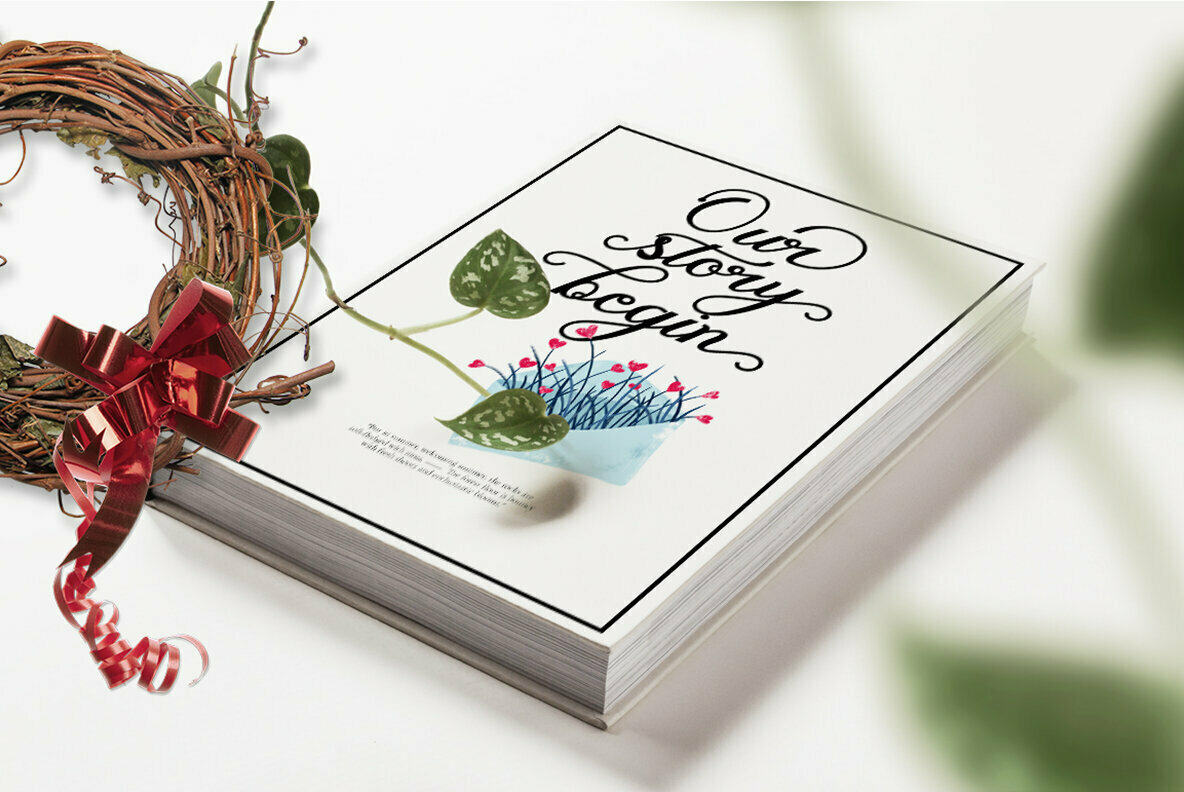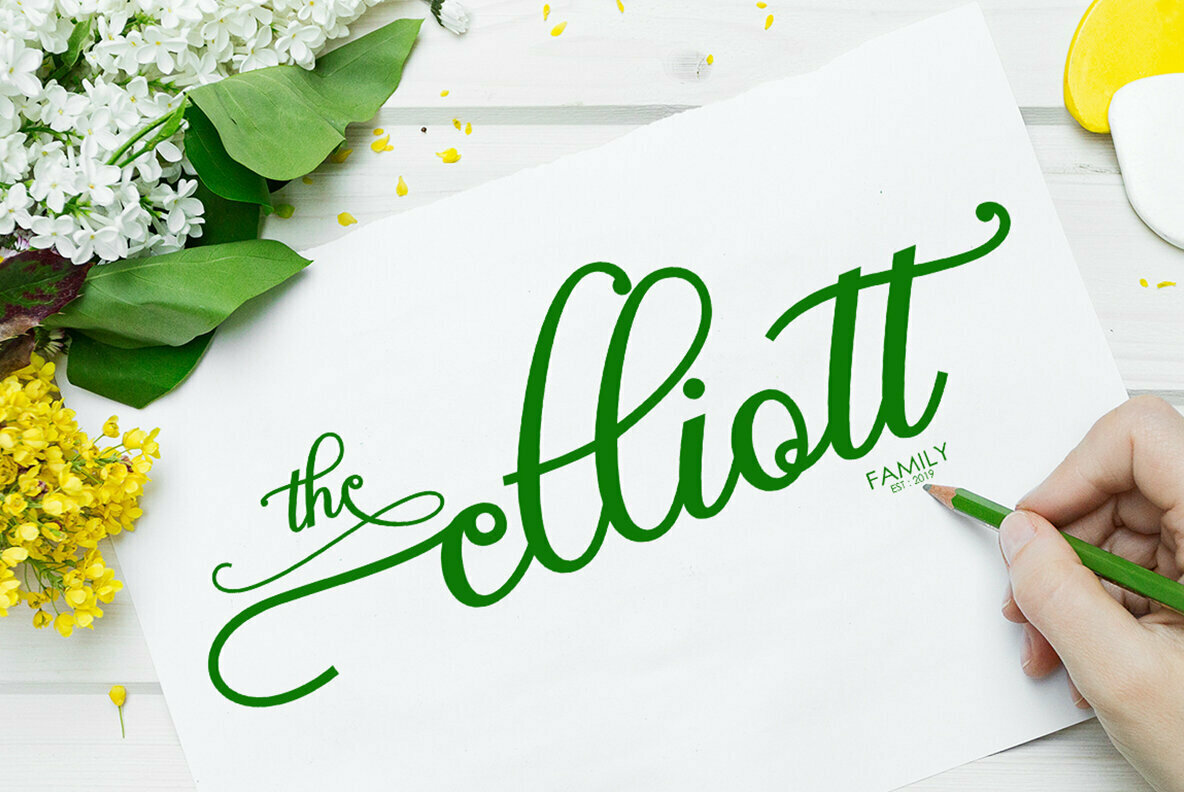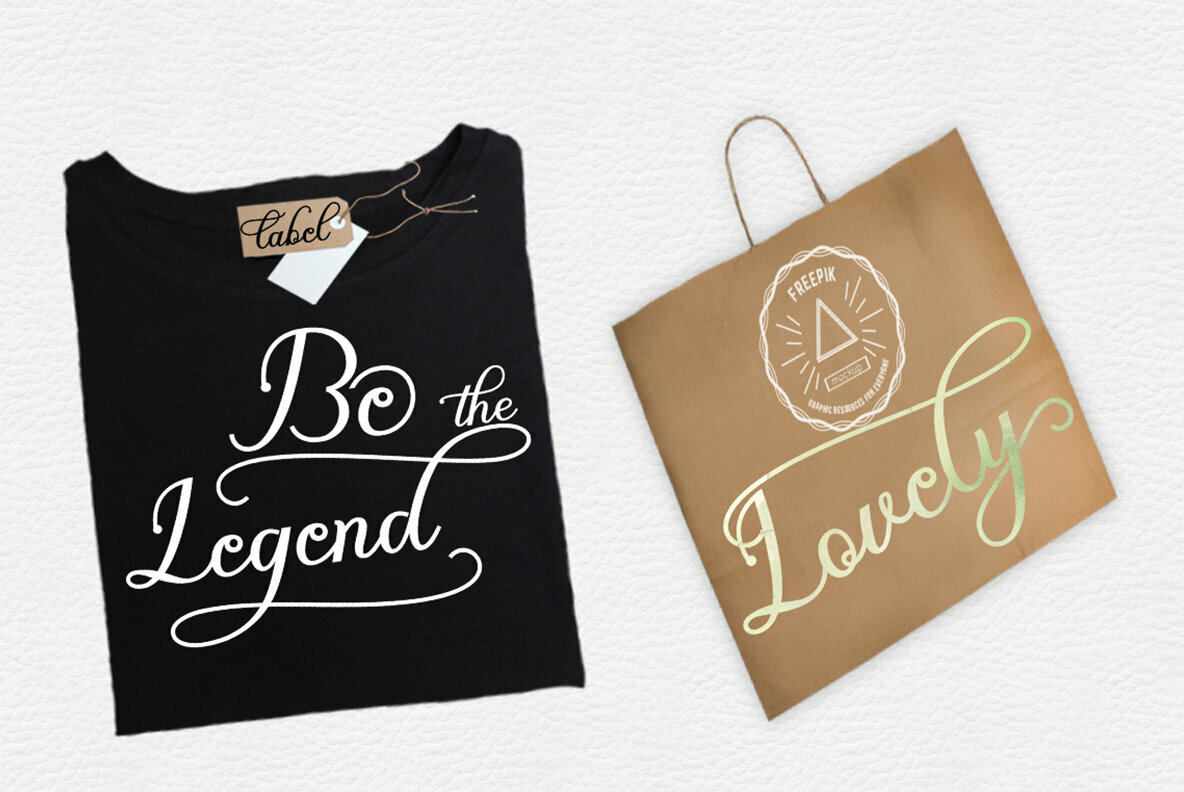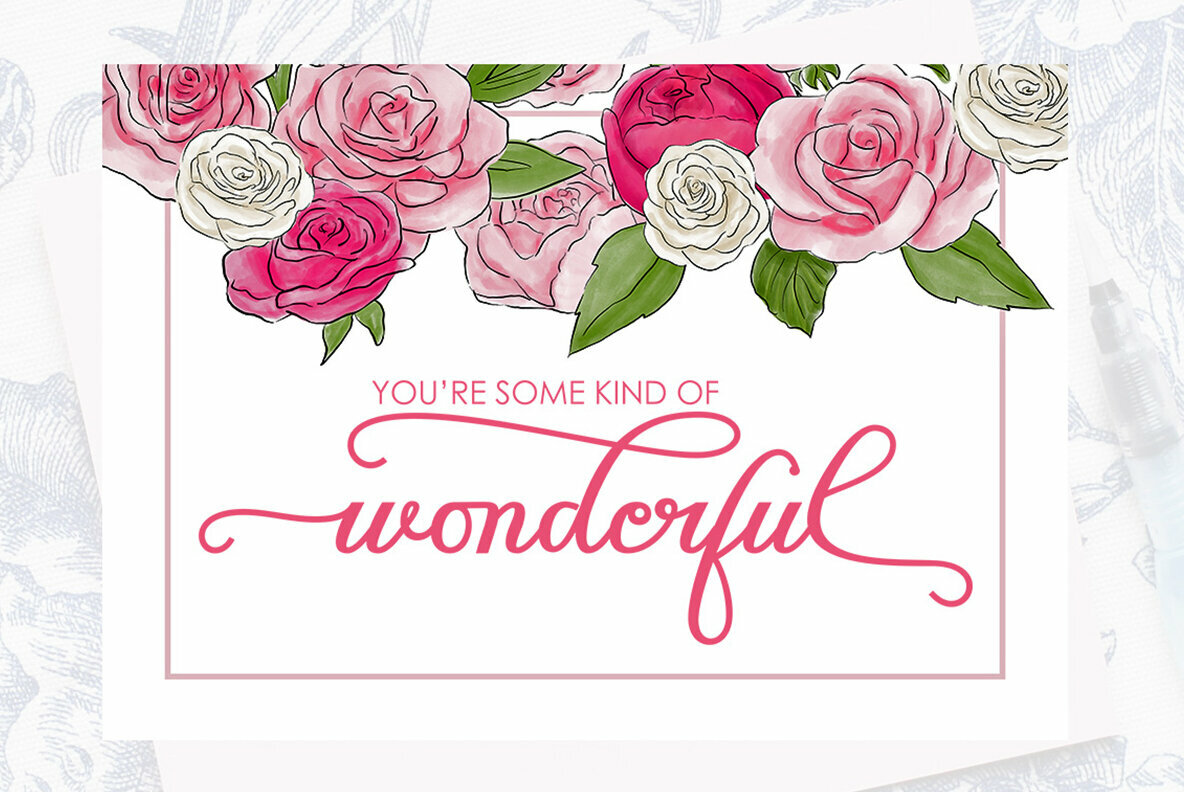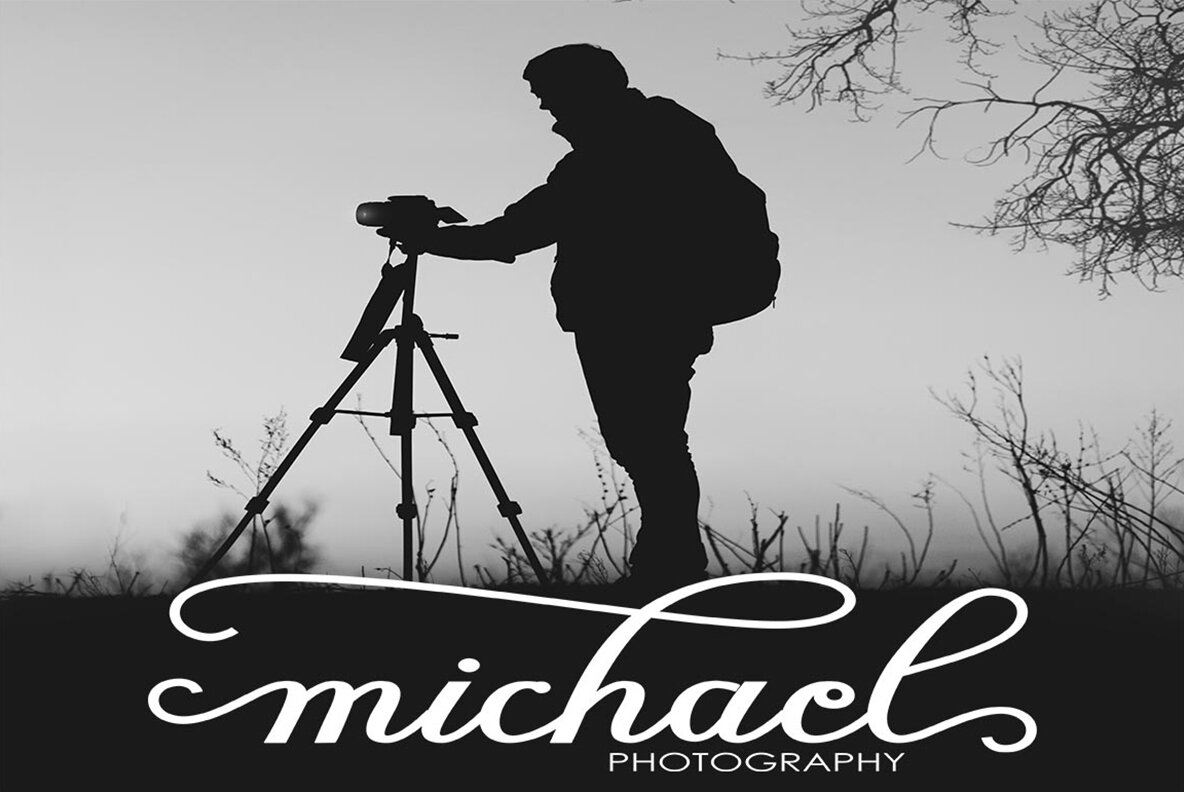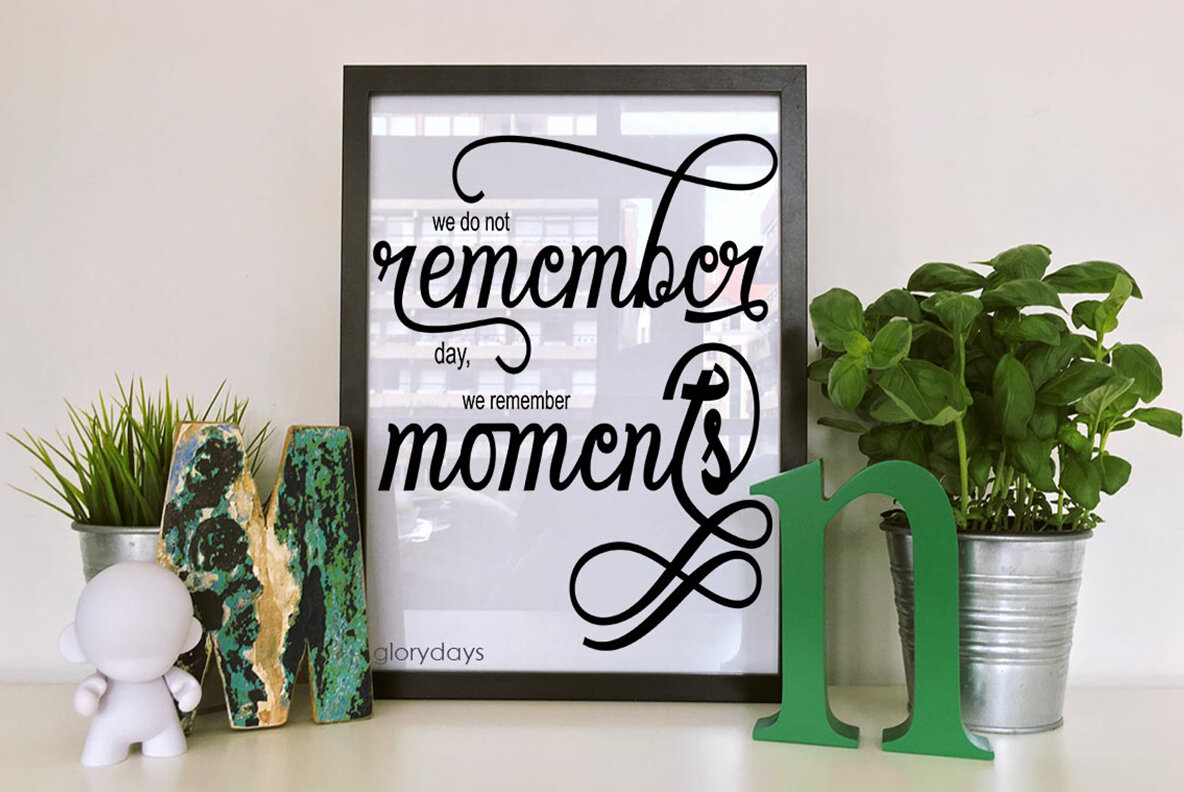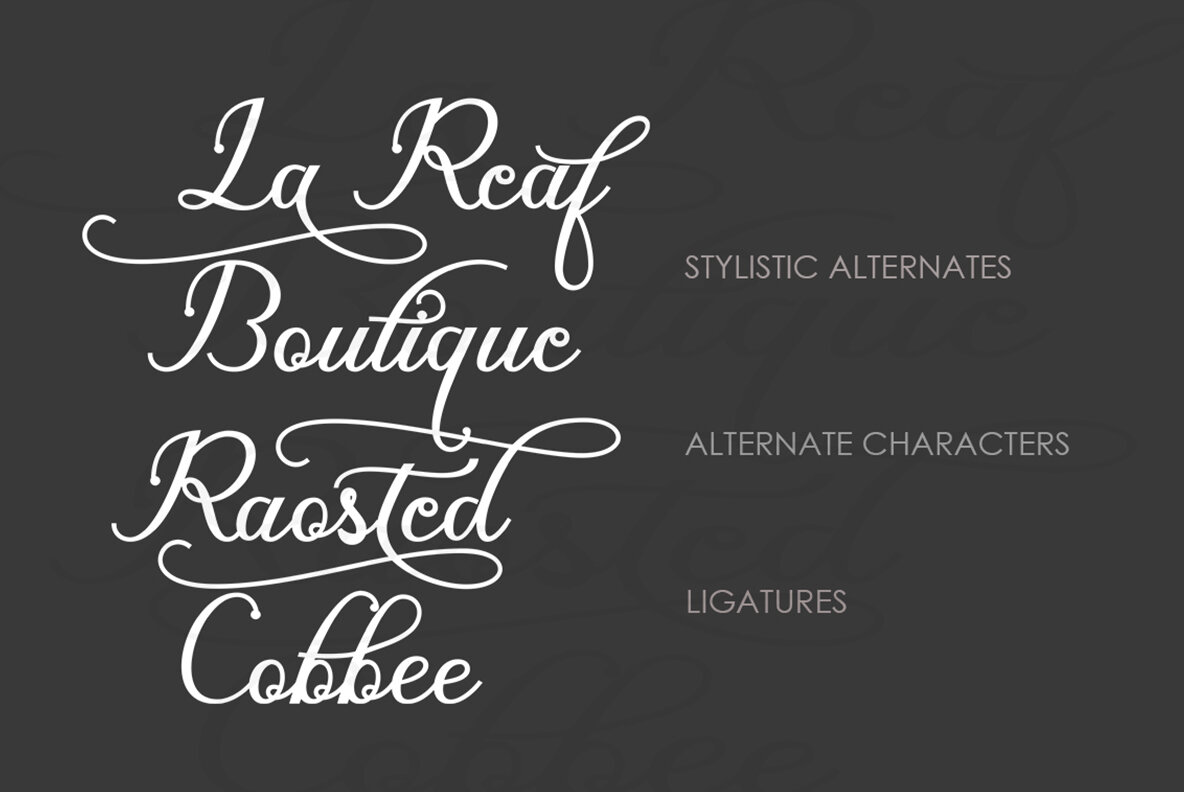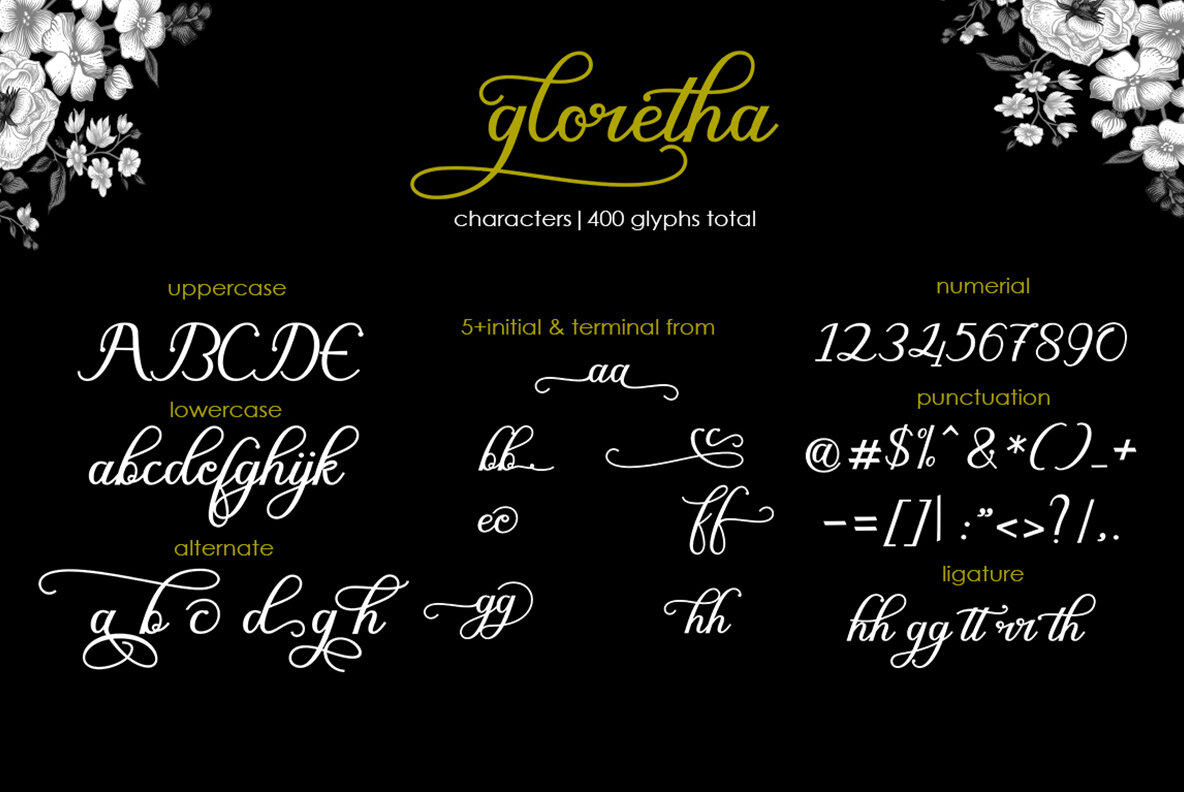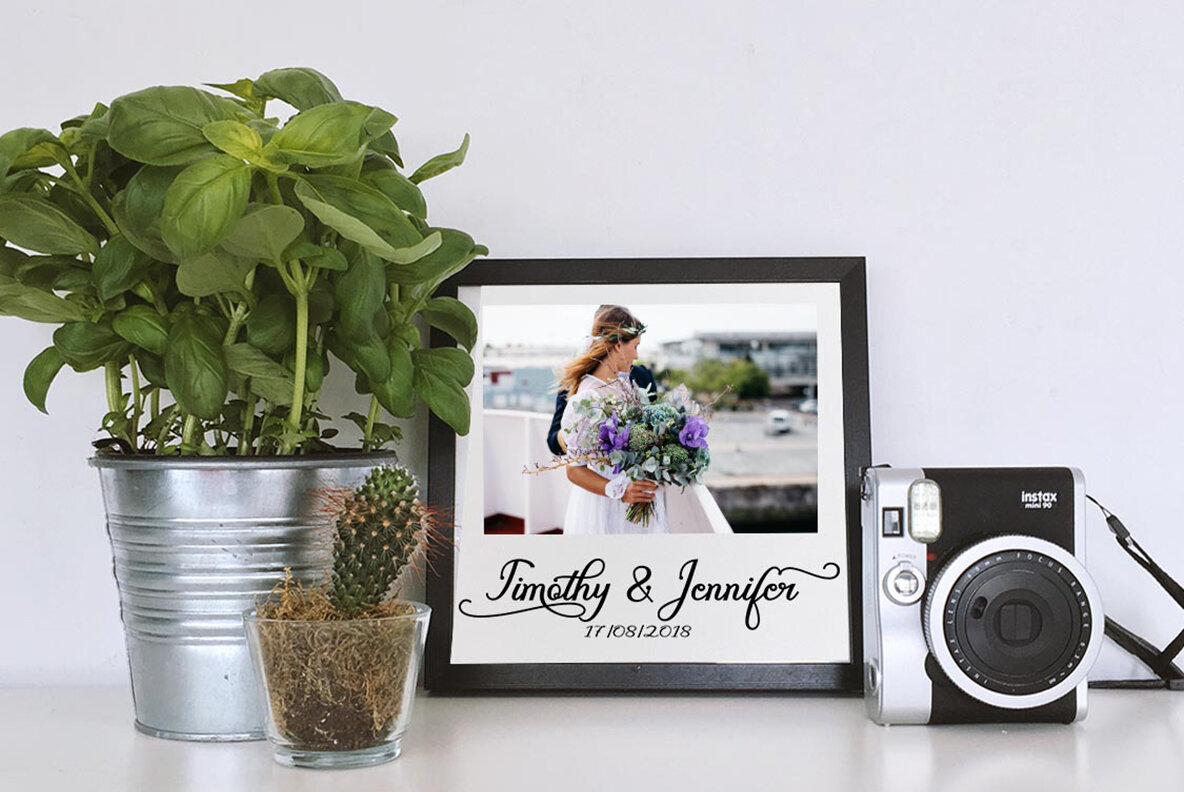
Gloretha Font
Embrace the charm of calligraphy with Gloretha, a script font designed by Akmal Yusar. Available in Regular and Bold styles, Gloretha exudes a casual yet elegant appeal, accented with swashes that enhance its aesthetic. This design is perfect for a multitude of applications, including branding, product packaging, wedding invitations, and more. Gloretha is encoded with PUA Unicode, providing complete access to its extra characters without the need for special design software. On a Mac, use Font Book, and on Windows, use Character Map to explore and use these additional characters in your preferred text editor or application. For a seamless design experience, OpenType features are supported by programs like Adobe Illustrator CS, Adobe Indesign, CorelDraw X6-X7, and Microsoft Word 2010 or later.Gloretha: A Versatile Calligraphy Script